1. Introduction: Why the Right Font Matters
Finding the best t-shirt fonts is one of the most important steps in apparel design. The font you choose can make or break your design—it influences readability, brand perception, and the overall impact of your message. When someone glances at a t-shirt, typography is often the very first element they notice, even before reading the words in detail.
A great visual phrase can fall flat if the letters are too thin, too ornate, or poorly spaced. That’s why choosing the right t-shirt font is more than just about aesthetics—it’s also about practicality, scalability, and print durability.
2. Key Criteria for Choosing the Best T-Shirt Fonts
- Legibility / readability : Clear from ~6–10 ft (2–3 meters). Avoid too thin strokes.
- Simplicity vs. detail : Decorative fonts should be limited to headlines.
- Contrast & weight : Bold and semi-bold weights usually perform best.
- Scalability : Works from small chest logos to oversized back prints.
- Print method compatibility : Screen printing vs. DTG vs. vinyl matters.
- Fabric distortion : Stronger strokes with stand stretch better.
- Kerning & spacing : Adjust manually for apparel design.
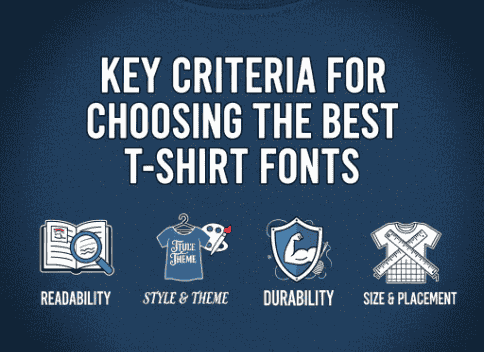
3. Font Styles & Categories That Work Best
- Sans-Serif Fonts : Clean, modern, high readability (eg, Montserrat).
- Serif Fonts : Retro or premium vibes, but avoid delicate details.
- Script / Handwritten Fonts : Personality & boutique style.
- Display / Decorative Fonts : Attention-grabbing for bold statements.
4. Top Font Recommendations & Use Cases
| Font / Type | Why It Works | Use Case / Tips |
|---|---|---|
| Antarctica | Geometric sans-serif, great scalability | Modern / minimal tees |
| Haiesley Sans Serif Font | Bold, condensed sans, common in apparel | Slogans & headlines |
| Royal Estelle Font | Elegant serif, classy tone | Vintage / premium tees |
| Brainpower Gothic | Adds personality | Quotes, casual designs |
| Maxdream Display Font | Unique, expressive | Festival & streetwear |
5. Pairing Fonts for T-Shirt Layouts
- Contrast is key : Pair script + sans-serif.
- Limit to 2–3 fonts : Avoid clutter.
- Hierarchy : Display fonts for headlines, neutral fonts for body.
- Consistent mood : Stick with a single theme.
- Spacing & alignment : Use guides for balance.
6. Printing & Fabric Considerations
- Screen Printing : Avoid thin details.
- DTG Printing : Handles complex fonts but watches for ink absorption.
- Heat Transfer / Vinyl : Needs thick lines for cutting accuracy.
- Fabric Stretch : Stick with sturdier fonts.
- Wash & Fade : Test small runs before mass printing.
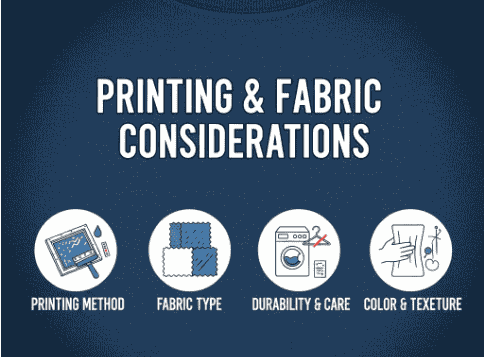
9. Conclusion
Choosing the best t-shirt fonts means balancing creativity with practicality. When you combine font style, legibility, print compatibility, and proper licensing, your designs will shine both on screen and in real life.